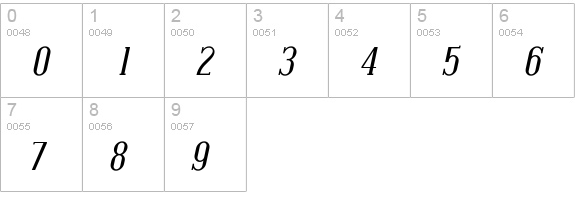
Covington Italic Font Details
Covington Italic is a distinctive, italic variant in the Covington typeface family \xE2\x80\x94 well suited to design and typography projects.
Covington Italic font is a sophisticated and elegant typeface that exudes class and style. With its sleek lines and graceful curves, this font is perfect for adding a touch of sophistication to any design project. The italicized characters give a sense of movement and fluidity, making it ideal for conveying a sense of elegance and refinement. What's even better is that Covington Italic font is available for free download at FontsMarket.com. This means you can easily access this stylish font for your projects without any cost. Whether you're working on a branding project, wedding invitations, or any other design that requires a touch of sophistication, Covington Italic font is sure to elevate your work to the next level. Download it today and add a touch of elegance to your designs.